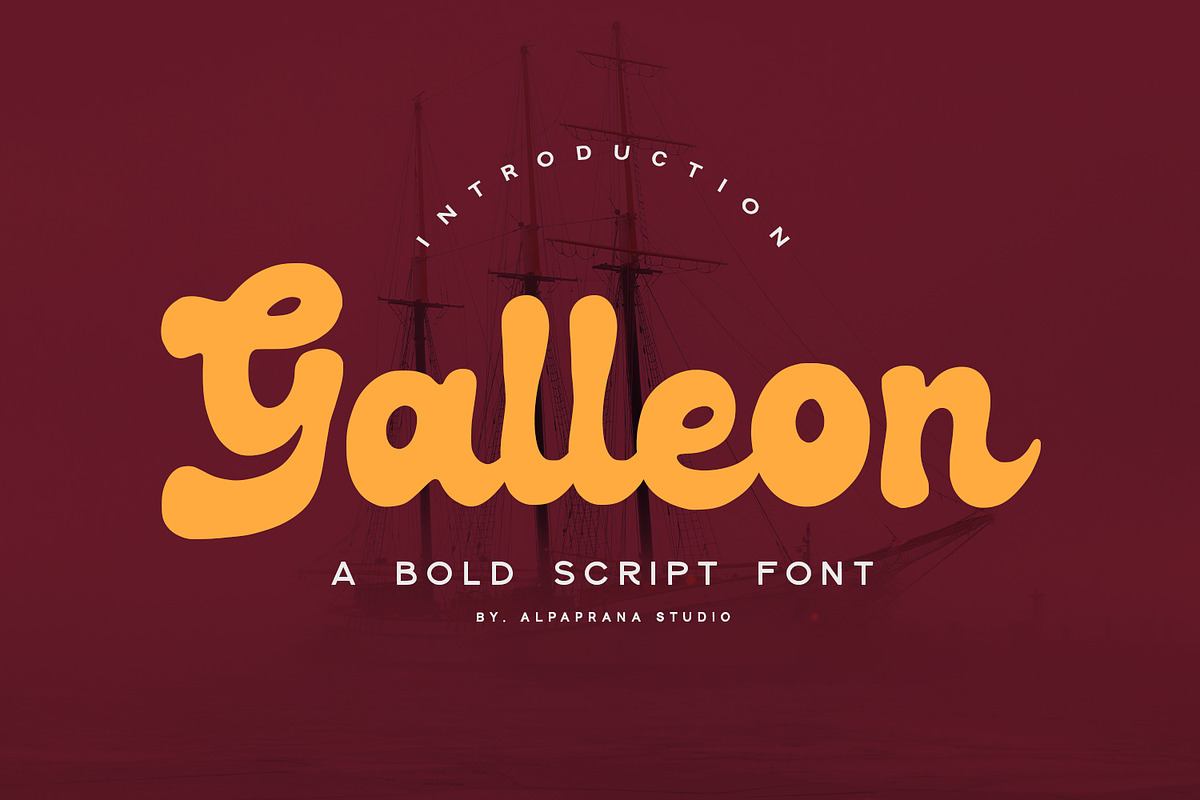
Galleon is a bold script font crafted by Alpaprana Studio, offering an elegant and modern aesthetic. It's particularly well-suited for various design projects, including branding, logo design, lettering, clothing, posters, magazines, packaging, shopping bags, t-shirts, book covers, photography, and special events.
Design Style: Galleon features a bold script style that exudes both elegance and modernity.
Character Set: The font includes uppercase and lowercase letters, numerals, punctuation marks, accents for multilingual support, ligatures, and stylistic alternates.
Incorporating Galleon into your design projects can add a touch of bold elegance and modern flair, enhancing the overall visual appeal.